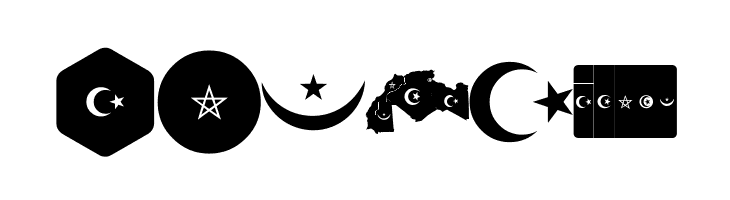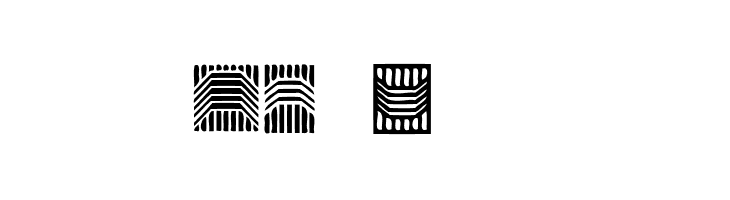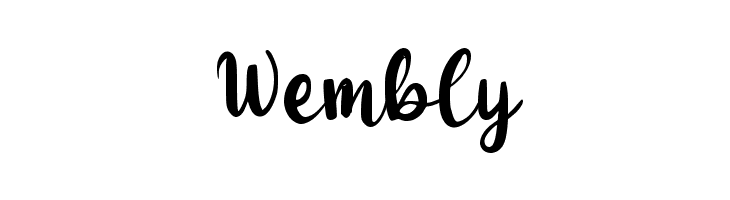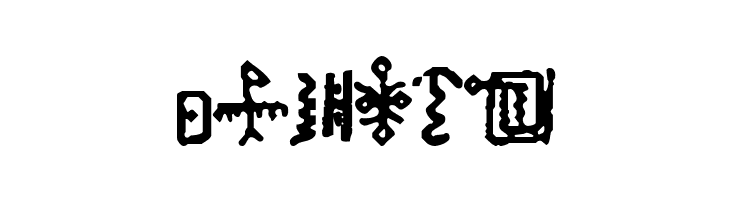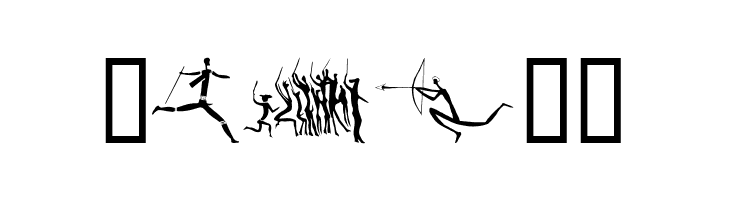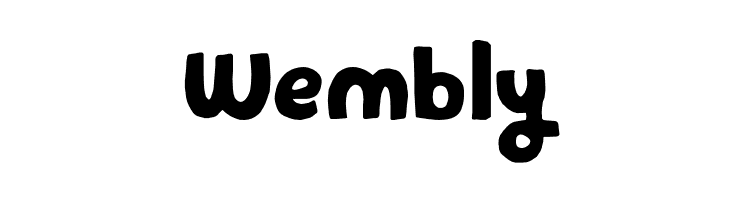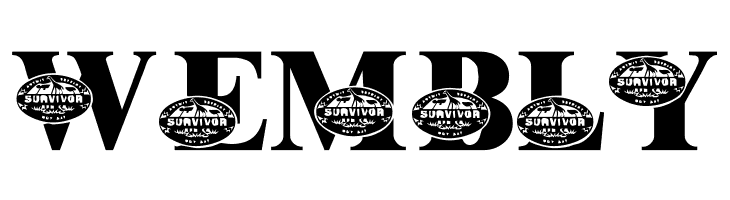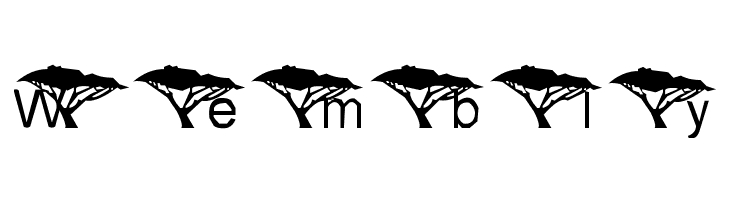
A bold, adventurous font with strong, angular lines and a rugged style.
A bold, geometric font with a layered outline effect, perfect for impactful headlines.
A bold, playful script font with dynamic curves and lively character.
Ornamental pictogram font with African cultural themes.
A decorative font inspired by African art, featuring bold and intricate symbols.
Ornamental, African-inspired circular display font with bold contrast.
Decorative font mimicking African cave drawing motifs.
Decorative pictorial font with African art and abstract motifs.
A bold, hand-drawn font with a rugged and energetic style.
A bold, geometric font inspired by African tribal art with a modern twist.
A bold, playful font with rounded edges and a hand-drawn feel.
Animal silhouette font with African wildlife motifs.
A bold, decorative font with acacia tree silhouettes atop each character.
A collection of decorative Afrocentric symbols with intricate geometric patterns.
Primitive, hand-drawn glyphs reminiscent of ancient rock art.
A decorative font with bold geometric patterns inspired by traditional art.